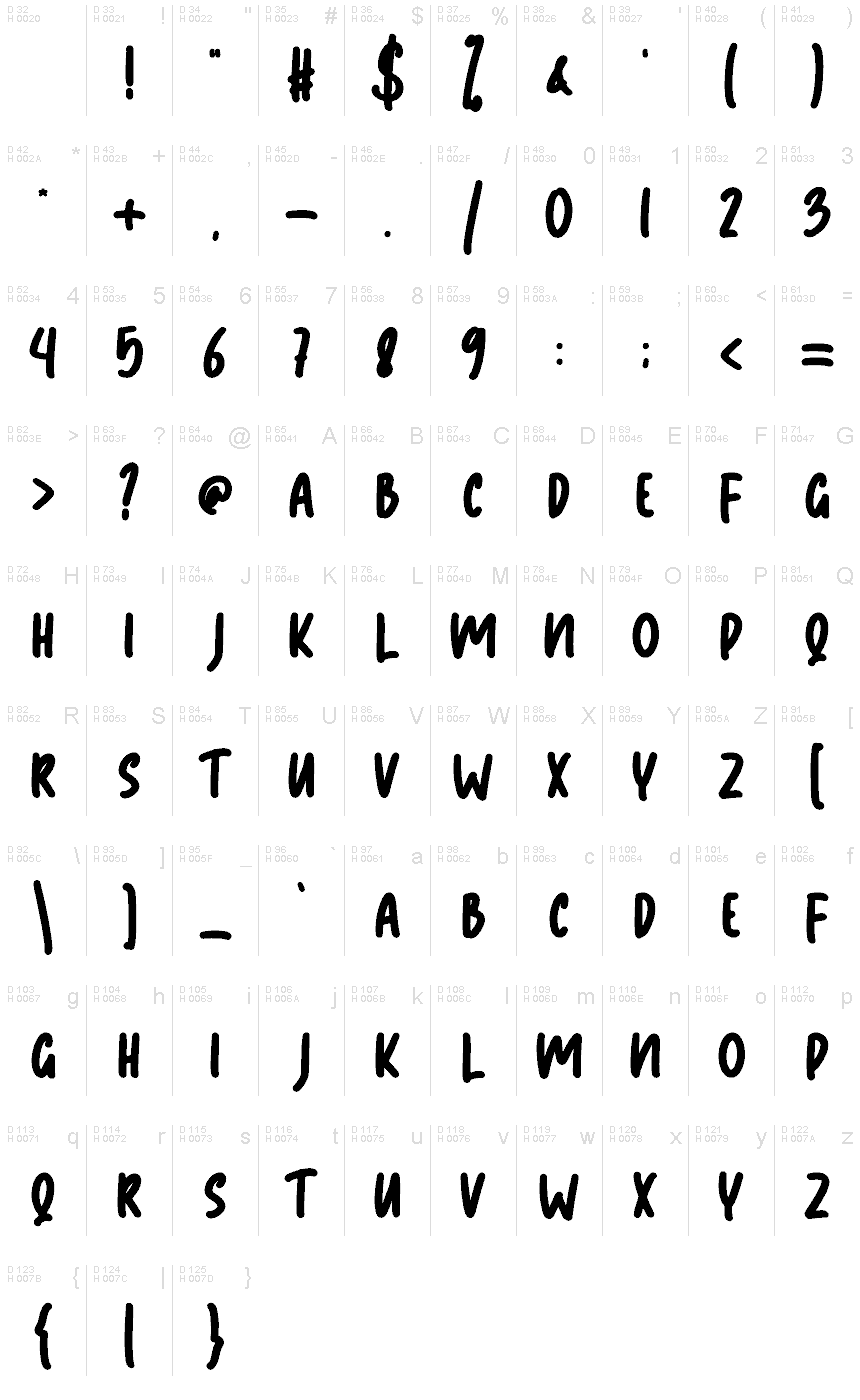
Apmonse
Apmonse font by Skiiller Studio is a condensed handwritten typeface with organic forms and expressive design. Retro-inspired but with modern applications in mind, it merges a casual vibe with unique characters. Each letter packs numerous imperfections, created naturally without being polished or bumped into a generic version.
Use Apmonse in creating your own postcards, posters, bag designs, wrapping papers, etc. Experiment with logo designs for fashion brands or boutiques to make them look more authentic. Finally use the free handwritten font in printing toy packaging boxes or using it on cling film used on large flower bouquets.